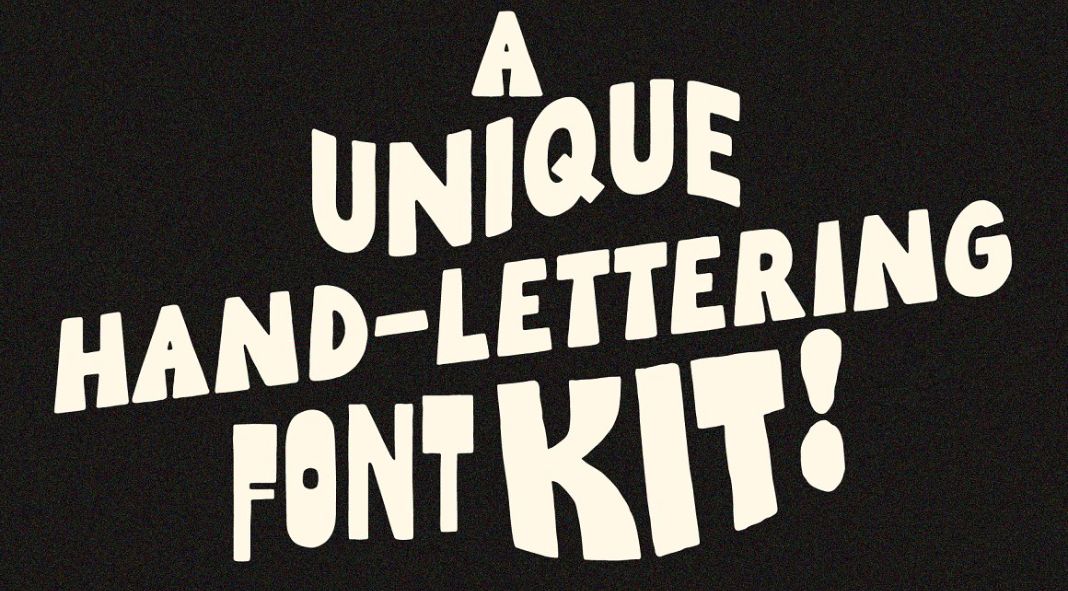
Unleash Your Creativity with Studio Funshop’s Hand-Lettering Kit!
Are you ready to elevate your design game? Look no further! The Studio Funshop Hand-Lettering Kit is here to ignite your imagination and infuse your projects with a dash of whimsy, a sprinkle of uniqueness, and a lot of character.
What’s Inside?
This delightful kit is a treasure trove of handmade fonts, meticulously crafted by the talented artist Kelli. Each font dances on the edge of perfection, embracing its delightful imperfections. Let’s dive into the font styles waiting to transform your creative endeavors:
1. Hello-Baddie
- A sassy serif font that whispers secrets and shouts confidence. Perfect for headlines that demand attention.
2. Hello-KookyCloud
- Imagine fluffy clouds playfully spelling out your messages. This bubble font is like a daydream captured in letters.
3. Hello-Oddball
- Eccentric, quirky, and utterly charming. This font dances to its beat, inviting you to join the party.
4. PaintedSerifk
- The brushstrokes of this serif font evoke the spirit of an artist’s canvas. Use it for elegant invitations or vintage-inspired designs.
5. VeryVeryK-TinyTiny
- Bold and compact, this font packs a punch. It’s perfect for minimalist logos or adding emphasis to short phrases.
6. VeryVeryK-BigBottom
- Tall, confident, and unapologetically bold. This font stands tall, just like your creative ambitions.
Why You’ll Love It
- Versatility: Whether you’re designing a logo, crafting a quote, or creating art, these fonts adapt effortlessly.
- Mix and Match: Kelli encourages playful experimentation. Combine different fonts to discover unexpected magic.
- Hand-Drawn Charm: These fonts aren’t sterile; they’re infused with the warmth of human touch.
- Professional Yet Playful: Studio Funshop strikes the perfect balance—serious enough for business, and whimsical enough for fun.